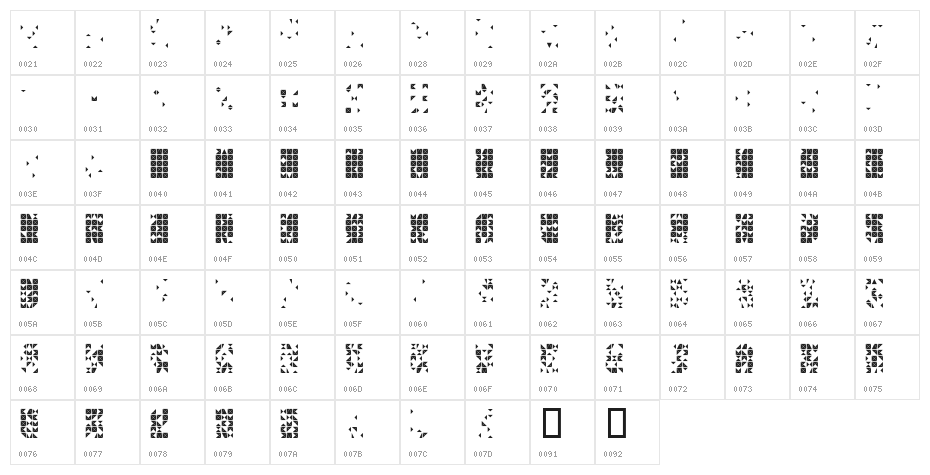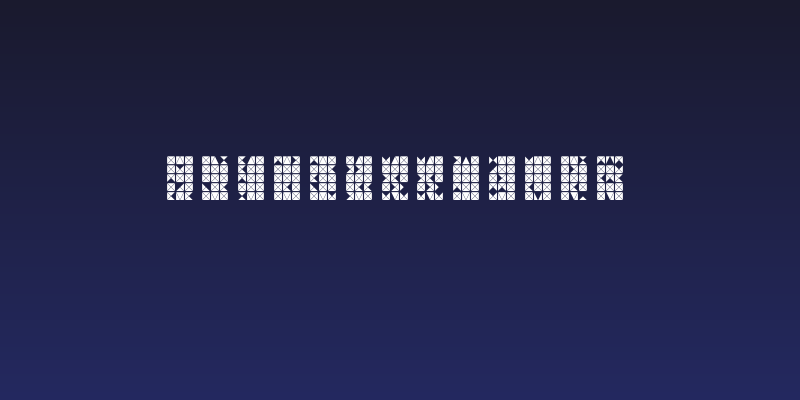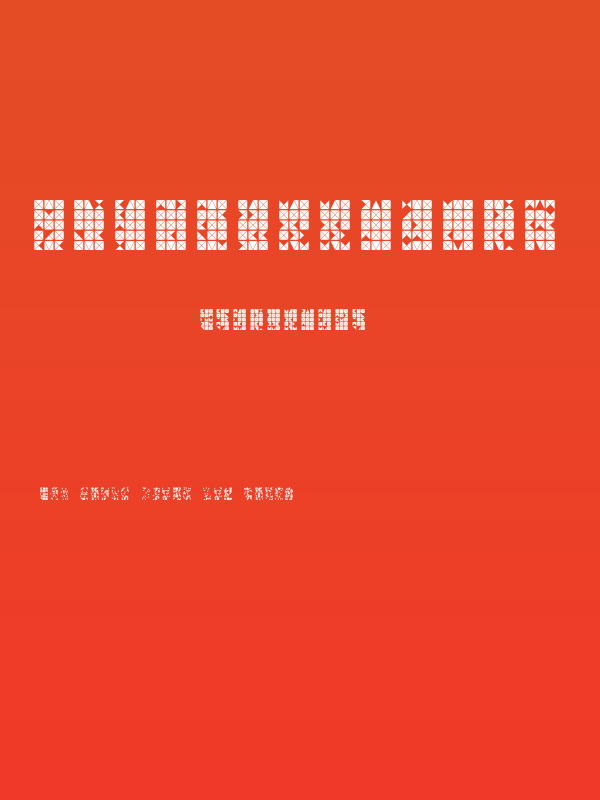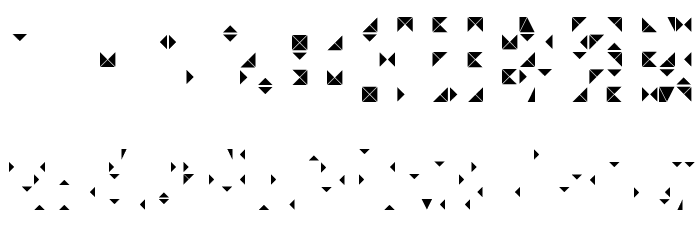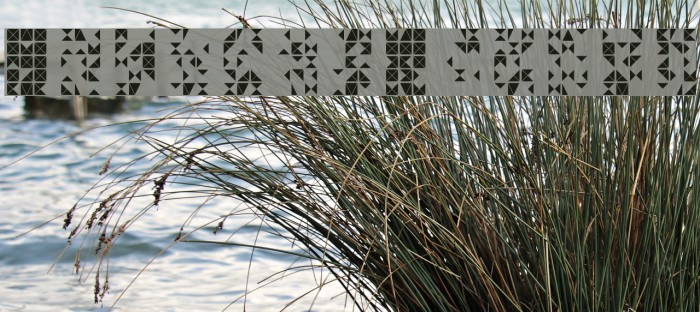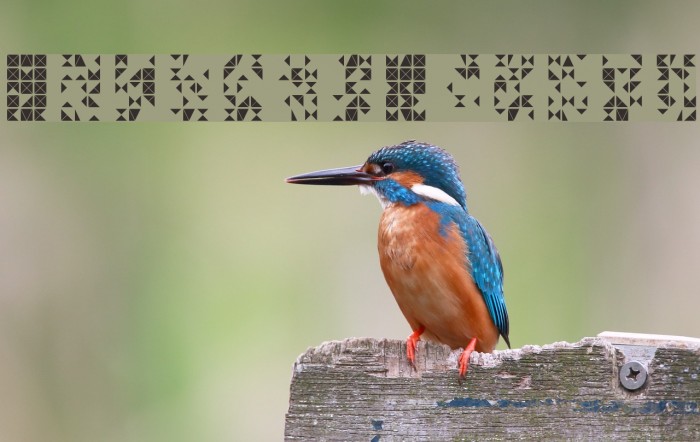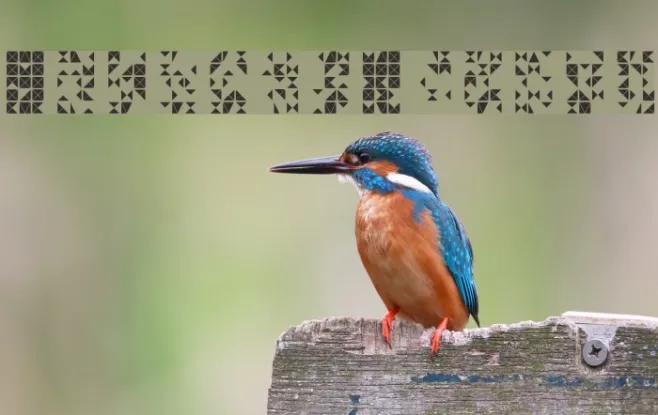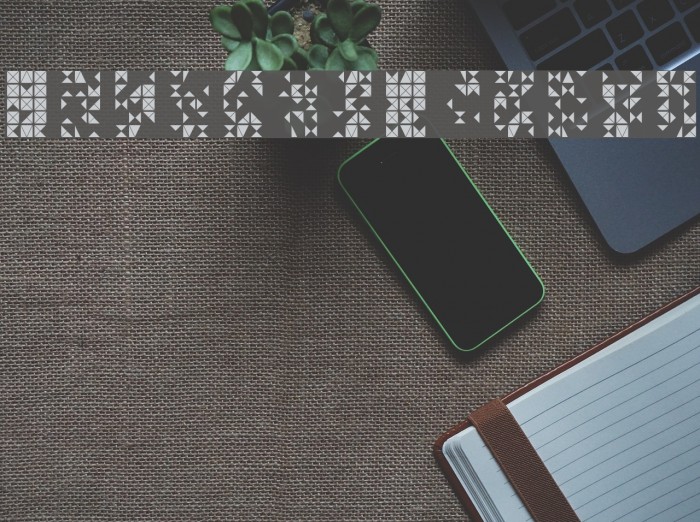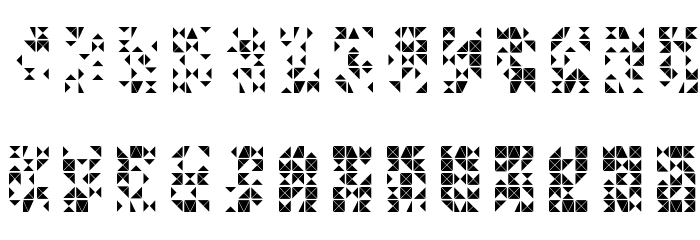
This font features a highly decorative and abstract design, characterized by its use of geometric shapes, primarily triangles, to form each letter and character. The design is intricate, with each character appearing as a mosaic of small, angular pieces that create a unique visual texture. This style gives the font a modern and artistic feel, making it stand out as a statement piece in any design. The characters are uniform in width, but the intricate patterning gives them a dynamic and lively appearance. The font is best suited for creative projects where a bold and unconventional look is desired.
| Proposed Projects | Ideal for artistic posters, album covers, modern art installations, and creative branding projects. |